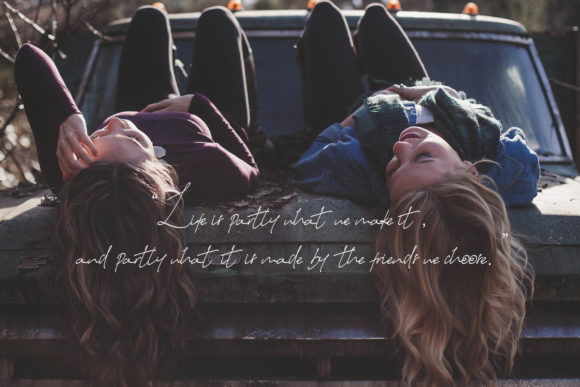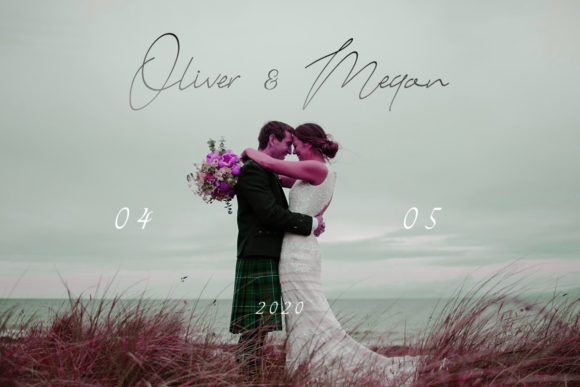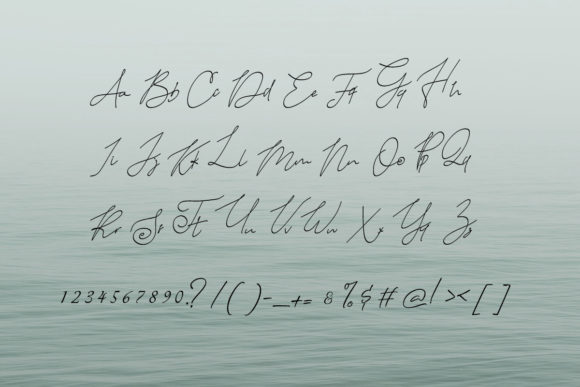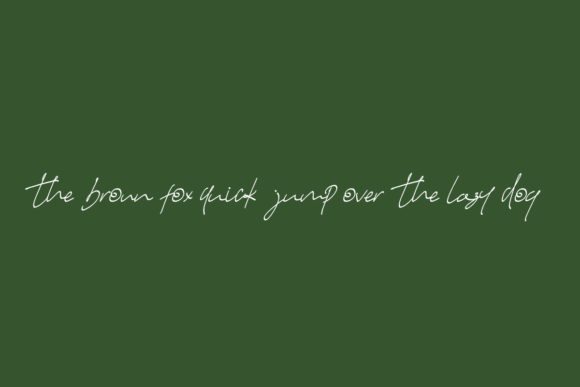
Introduction to Harvest Curly Font
Harvest Curly is a beautiful handwritten font.
You can use it for more casual design jobs to give your designs a casual homey feel .
Key Features of Harvest Curly Font